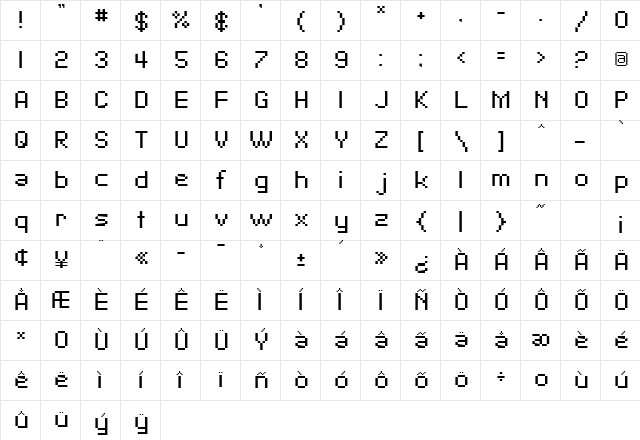
SF Pixelate Regular Free Font
SF Pixelate Regular
Complete SF Pixelate Regular glyph index. Displaying only characters natively supported by SF Pixelate Regular font.
Design Context for SF Pixelate
SF Pixelate is rooted in pixel-grid construction, making it a natural fit for game UI, retro computing aesthetics, and digital nostalgia projects.
Pro Tip: Use SF Pixelate at sizes that align with its pixel grid for the sharpest rendering - scaling to non-integer multiples can introduce unwanted blur.